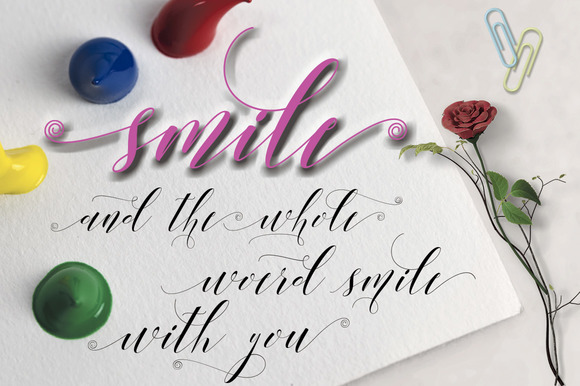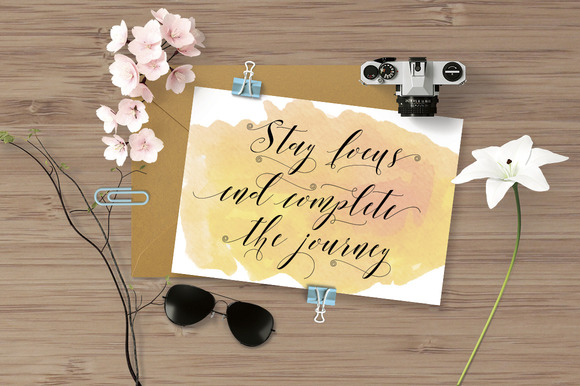
About Modigirl Script Font
Modigirl Script is a super elegant font packed with a staggering 925 unique handmade glyphs.
Because of it’s great amount of glyphs this font is very versatile and can be used for many different purposes. The Modigirl Script font will give your designs an authentic touch.